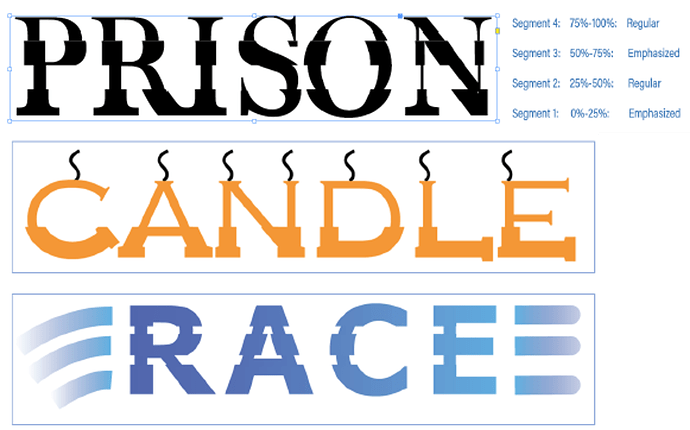
We wanted to know if there is any usefulness to generate custom fonts whose glyphs are a combination of bold and italic typeface. We call these glyphs “Hybrid Glyphs”. So, to say, each glyph is segmented into regions and each region may have a different typeface replicated .
In terms of workflow, the user selects the font, say regular, and defines the segment marks in terms of how low it is from the font ascender line. Let say he marks two points at 20% and 50% above from the fonts descender (total font height=ascender-descender). This will generate three segments. For each segment he then may choose a different typeface to be replicated. For example, he may choose Bold-Italic-Bold. This will even be possible if the designer does not have the bold and italic typefaces of the font. In such cases, it will replicate a false bold in the first segment, a false italic in the middle segment and a false bold in the third segment. In case the user has the required typefaces of the font family, then that portion of the glyph will be taken from the corresponding font. The user may choose any typeface like semi-bold, semi-italic, condensed etc
Some key aspects:
Glyphs can be partitioned into any number of segments
There is no convert to outline. Text remains live and editable
User can control the thickness of the bold and slant angle of the italics.. something like variable fonts
We primarily want to know…
Will this “feature” be useful to designers?
How often will you use this capability?
Under which scenarios and product will this most likely be useful? (maybe for Logos in AI? and titles in InDesign?)
Do you see any missing aspects to this which can increase its usage?
In light of the latest typography advancements (SVG fonts, variable fonts) how do you place this capability?
There are three types of font commonly used. Serif, Sans Serif and Fancy. The serifed fonts are mostly used for long passages of text where comfort of reading is it’s primary purpose.
Sans serif fonts are mainly used for short passages of text where instant recognition is important. Although these are not hard and fast rules.
Fancy text is used in signage and advertising where it’s primary purpose is to attract attention to the sign rather than to be legible.
I don’t think this feature of being able to segment fonts to create a ‘hybrid’ would get much usage and I certainly don’t think anyone would be willing to pay for such a feature.
There are already thousands of fancy fonts out there for free download. Having to select fonts for the mash up would add extra time to the process and to what end ?
To my eyes the end results you have presented are not that attractive and the same thing could be achieved in a graphic design program quite easily if such an efect was desired.
I don’t think many people will be interested in this software if it ever gets produced.
Aman, you’ll get pretty much the same answer wherever you post this (and have).
It is simply not a useful concept. Please have the ID team (and the other teams) concentrate on bug fixes versus solutions awaiting a problem. Alternatively to pure bug fixes, run through and implement the User Voice issues & suggestions.
This is part of an experimental work I am involved in and wanted to know if this is something in any form be useful for typographers like you and many others in the industry.